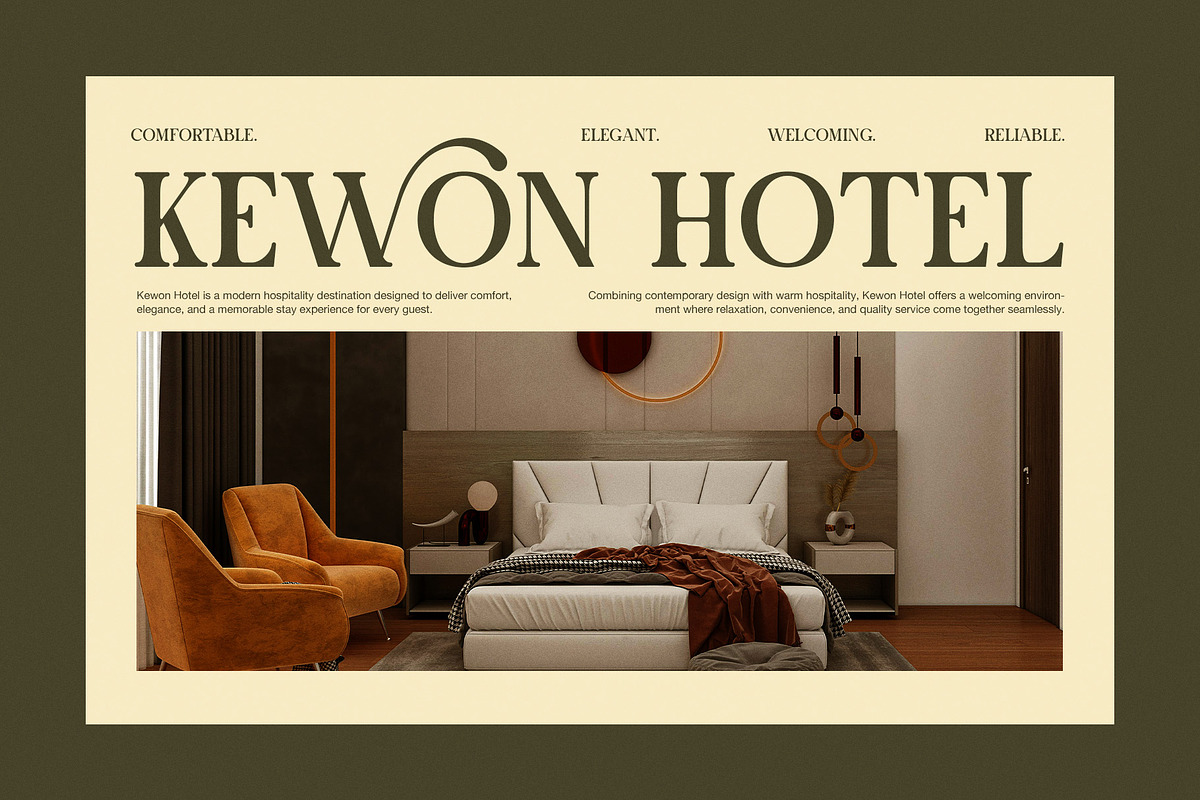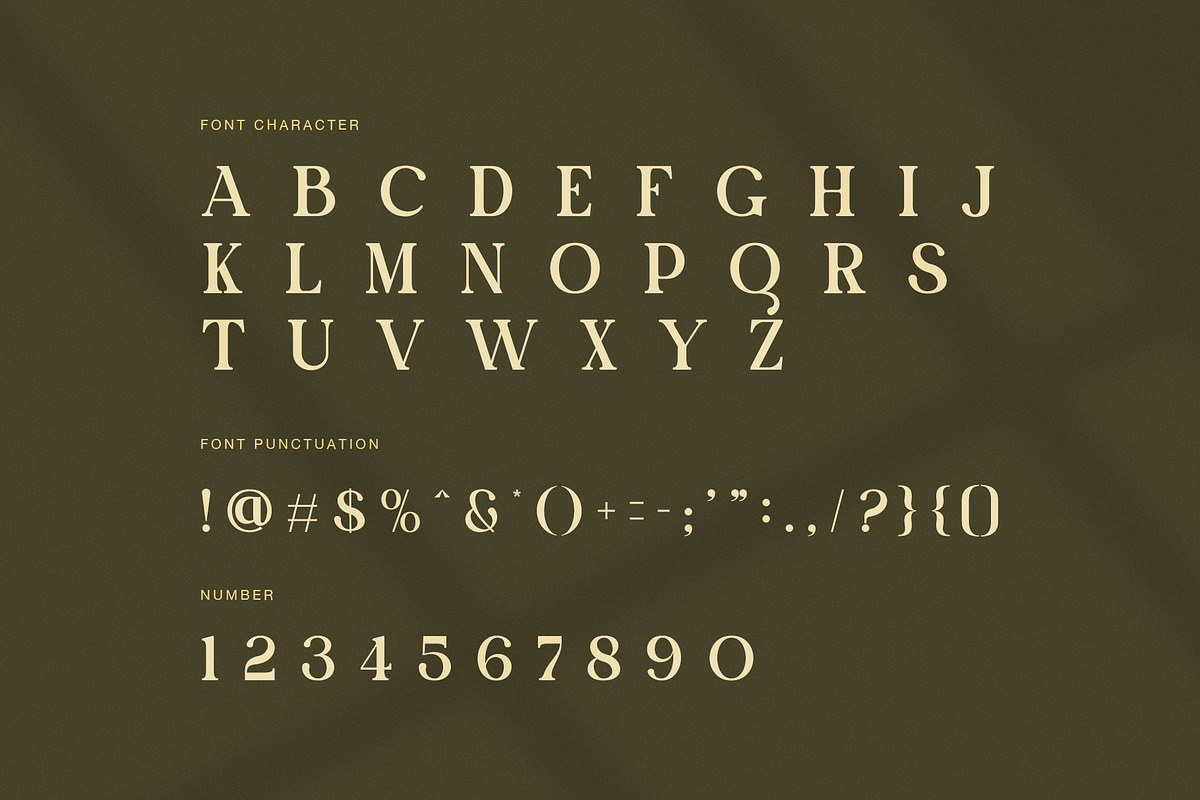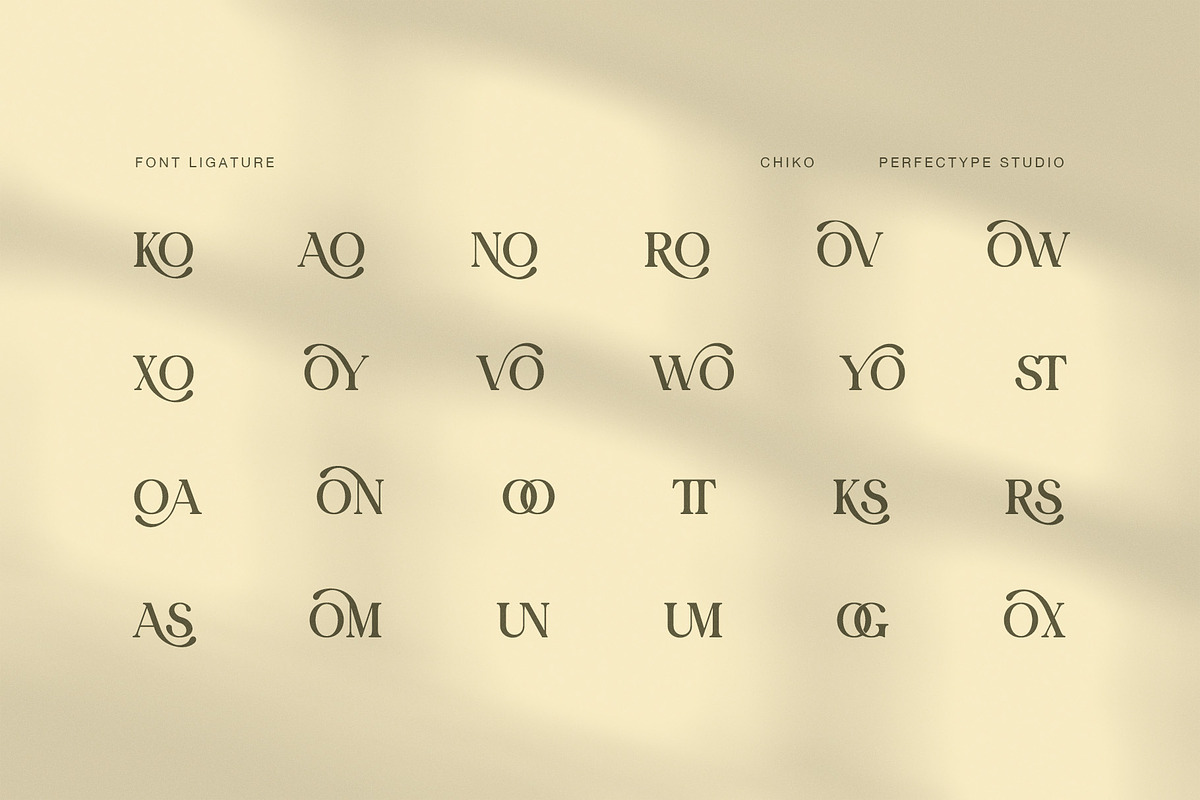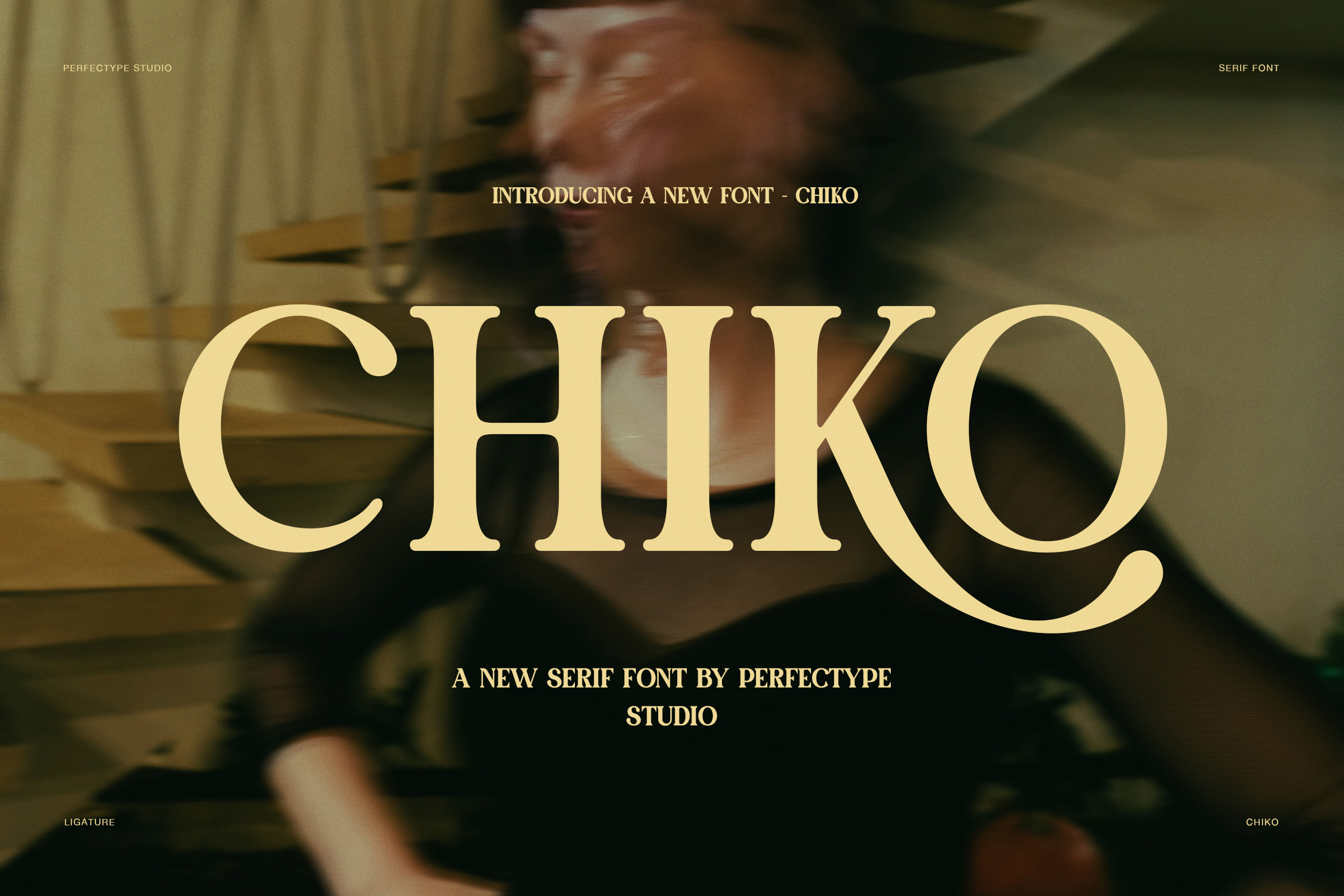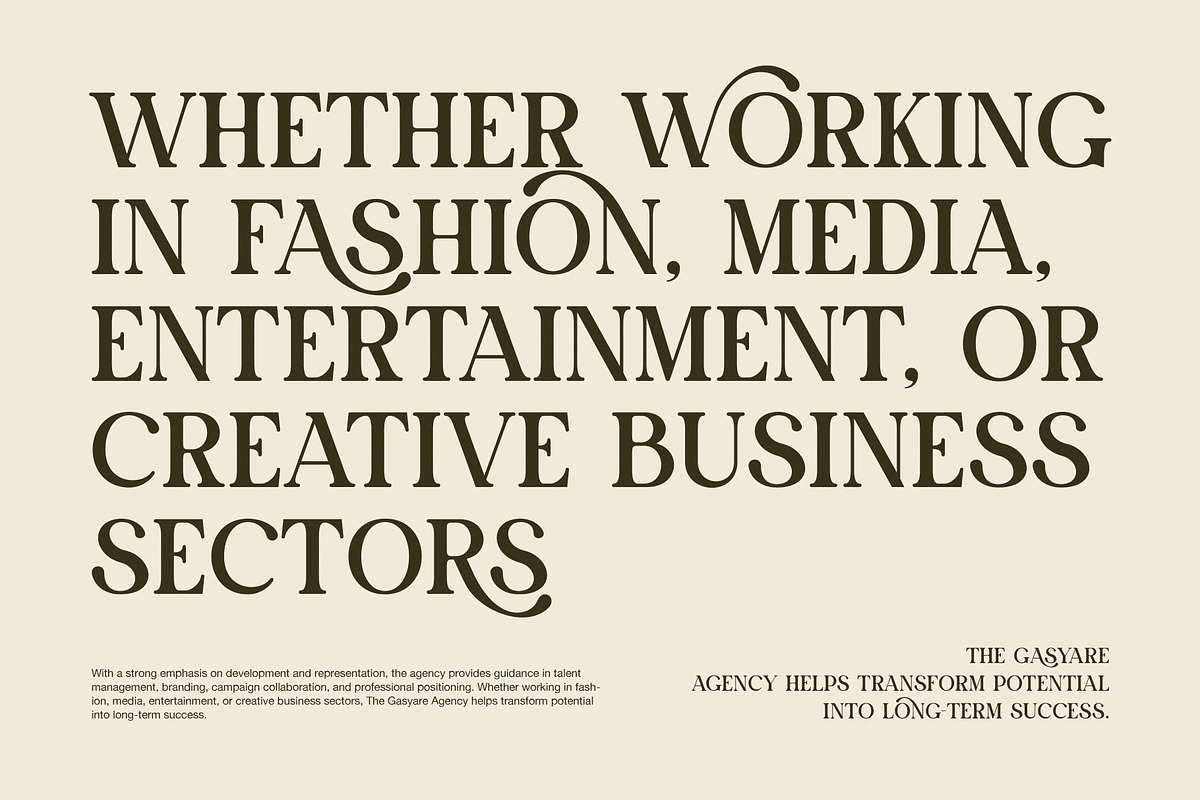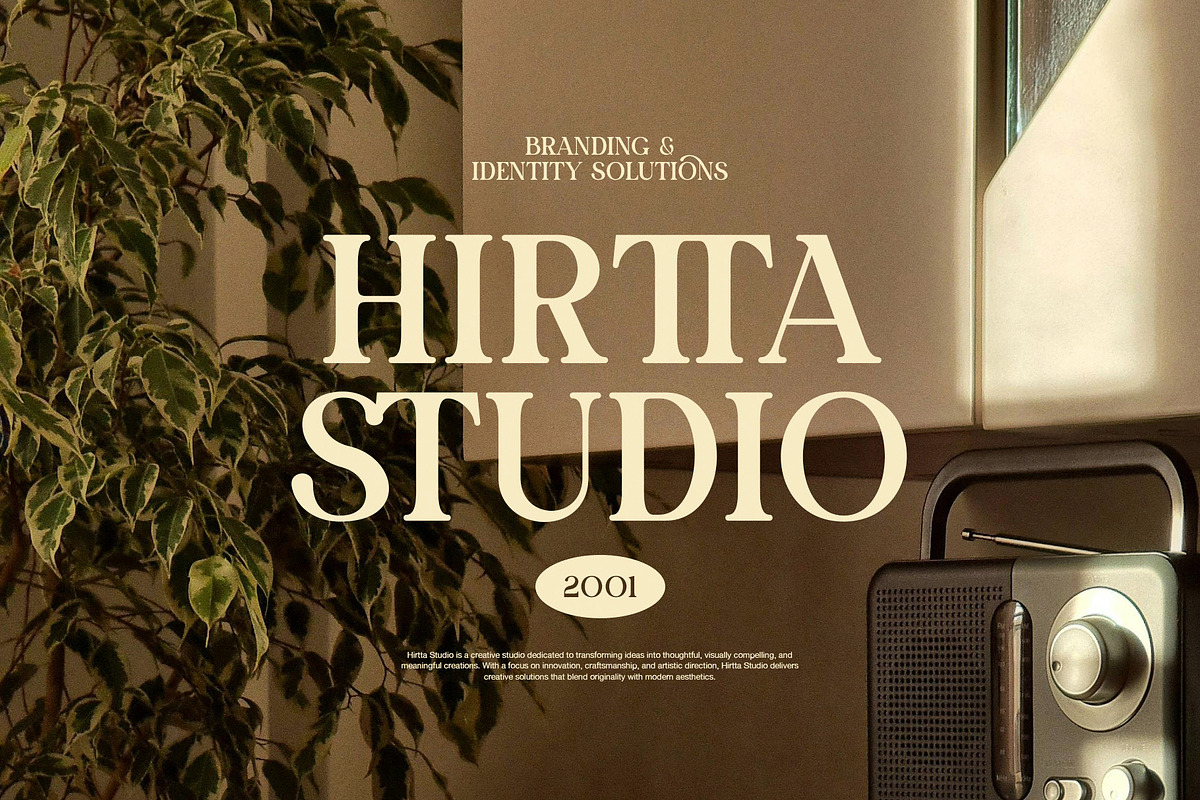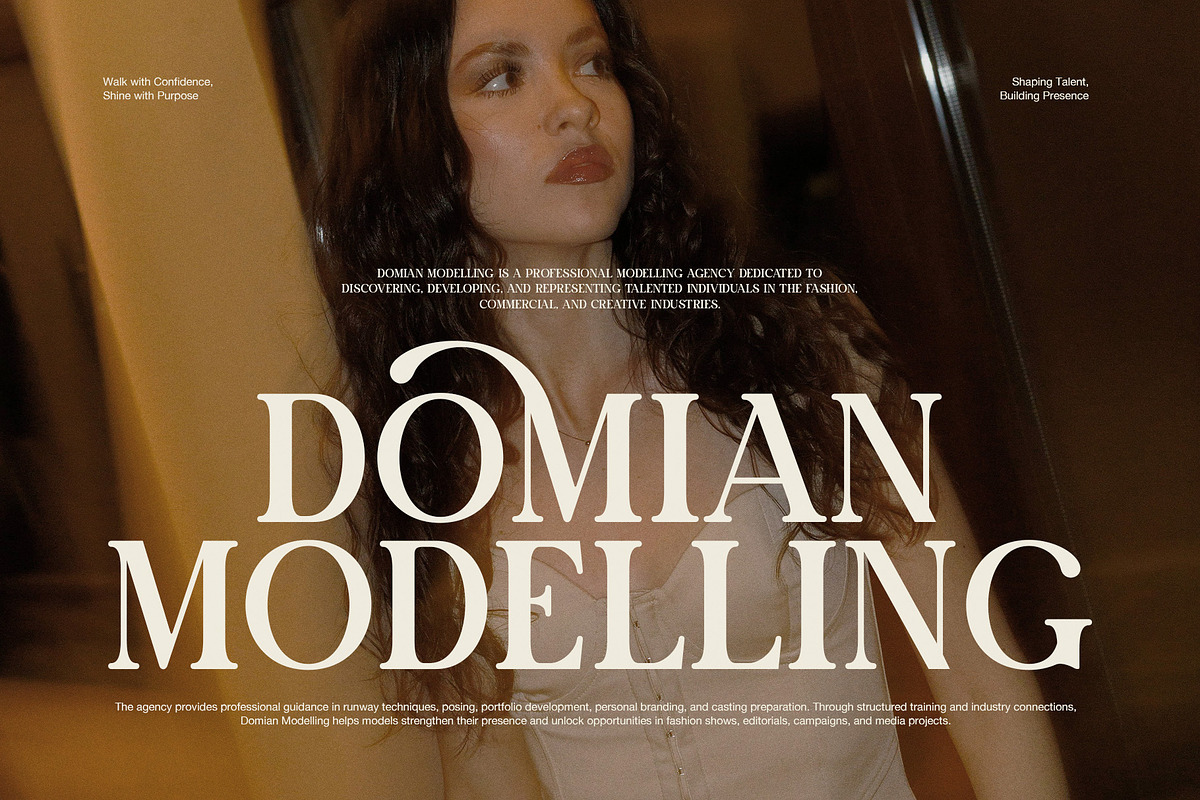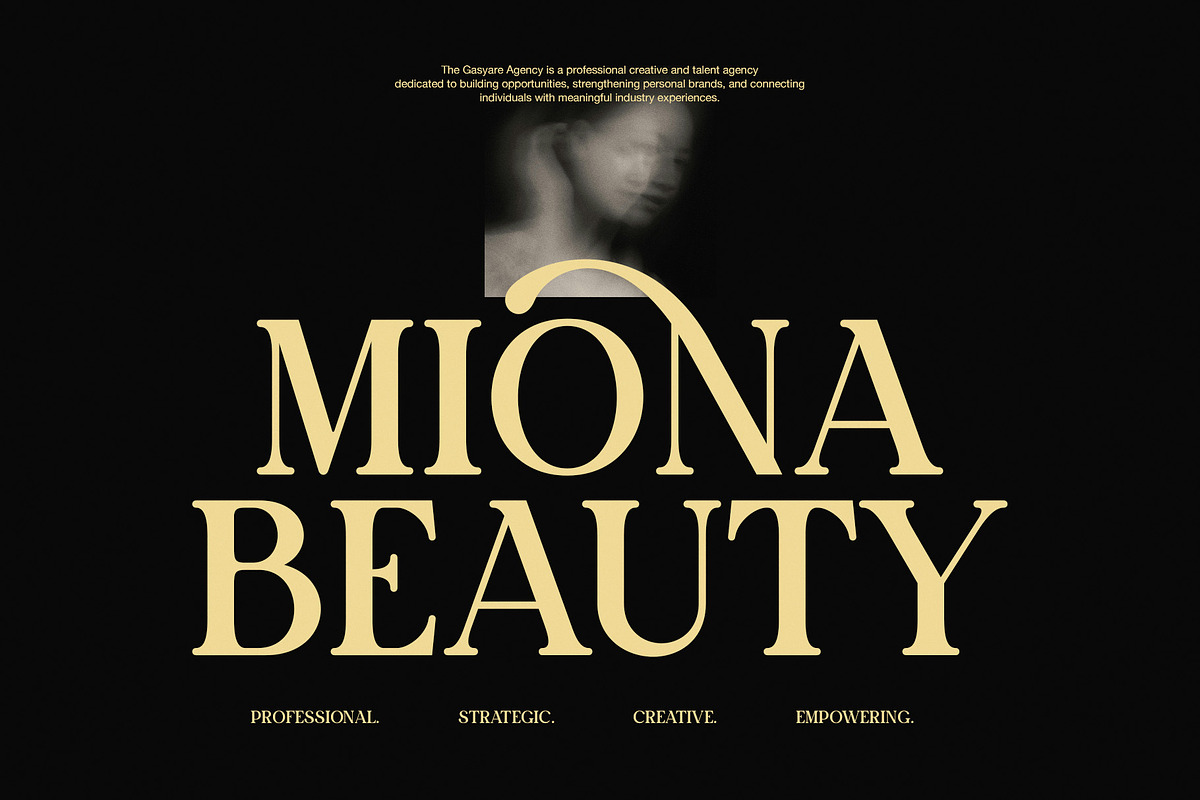
Chiko Elegant Ligature Serif Font
Chiko Elegant Ligature Serif Font is a refined display serif that brings grace, clarity, and visual drama to modern branding. It has a classic serif base, yet it feels fresh because of its sharp contrast, tall proportions, and decorative ligature details. As a result, Chiko looks polished in luxury layouts while still feeling artistic and memorable.
At first glance, this font shows a strong editorial spirit. The letterforms are elegant, clean, and structured. However, the true charm of Chiko appears in its ornamental ligatures. Several pairs feature curved strokes that wrap around the letters with a soft, flowing motion. Because of this detail, headlines feel more custom, more premium, and more expressive. In addition, those ligatures help short words and brand names stand out in a very natural way.
Chiko is especially effective for visual identities that need both authority and beauty. In the previews, it works beautifully for beauty brands, fashion labels, hotels, interior studios, model agencies, and luxury lifestyle presentations. Therefore, it is a strong choice for designers who want a serif font that can feel elegant, professional, and distinctive at the same time.
Although Chiko has a stylish look, it still keeps a clean structure. The uppercase forms are readable, balanced, and easy to place in large compositions. Moreover, the punctuation and number set make it useful for brand systems, campaigns, posters, and presentation work. The ligature options also give designers more room to build unique wordmarks without losing consistency.
Best uses for Chiko
luxury branding
fashion logos
hotel identity
beauty packaging
editorial headlines
model agency branding
interior design branding
restaurant menus
quote posters
social media campaigns
Why Chiko stands out
Elegant serif structure
Decorative ligature options
Clean uppercase display style
High-end editorial feel
Strong branding presence
Beautiful for short titles and logos
If you need an elegant ligature serif font that feels classic, bold, and elevated, Chiko is a smart creative tool. It delivers beauty first; meanwhile, it keeps enough clarity for professional design work. So, whether you are building a luxury brand, a fashion campaign, or a premium presentation, Chiko helps your typography feel stylish, memorable, and full of character.